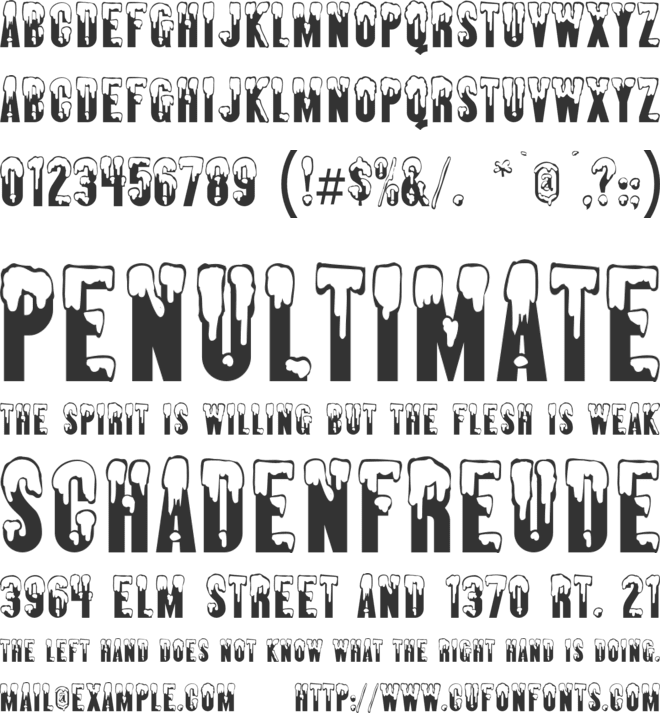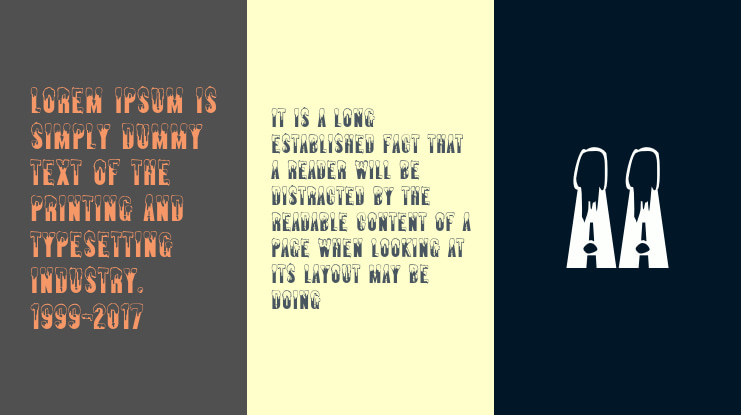
Raymond Larabie
I introduced Almonte on December 23, 1999. It was a quick, top-of-the
dome attempt at a wooden sans look, created entirely digitally without
reference to actual wood type. I just imagined how it should look and
built it from scratch with digital tools.
I released the family in three finishes: standard, wood grain, and snow.
At the time, I saw it as a free alternative to fonts like Poplar, since there
weren’t many no-cost options for that bold poster style. Rather than
trying to be authentic, I exaggerated the forms, making them clunky
and dumpy — because sometimes a typeface needs to lean into “ugly”
to hit the right note.
The name comes from Almonte, Ontario, where my sister lives, which
felt fitting for a design with a rural character. Almonte was immediately
popular and ended up on product labels, restaurant signs, and plenty of
websites. I’ve also seen it used in mock-ups imitating old-fashioned
wood poster styles.
It wasn’t the only time I tried this kind of exaggerated rustic design.
Bench Grinder, which came later, was even more clunky and strange. In